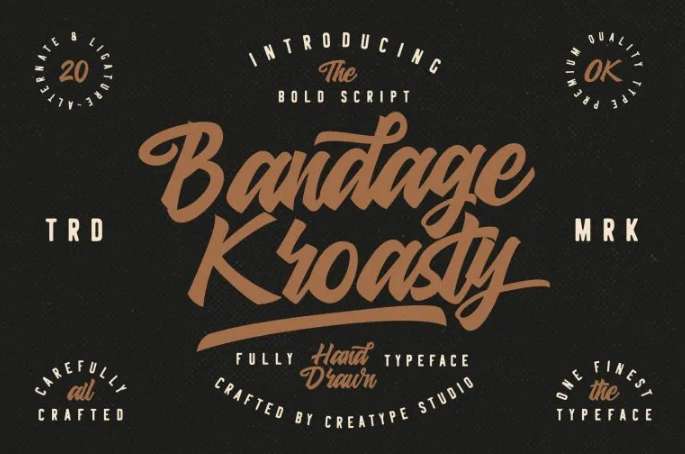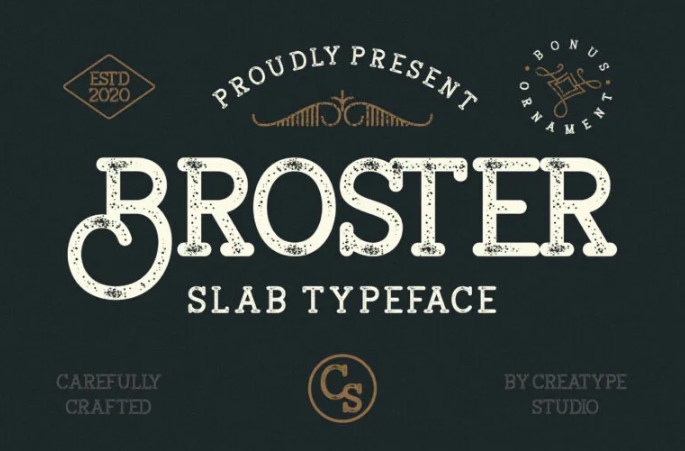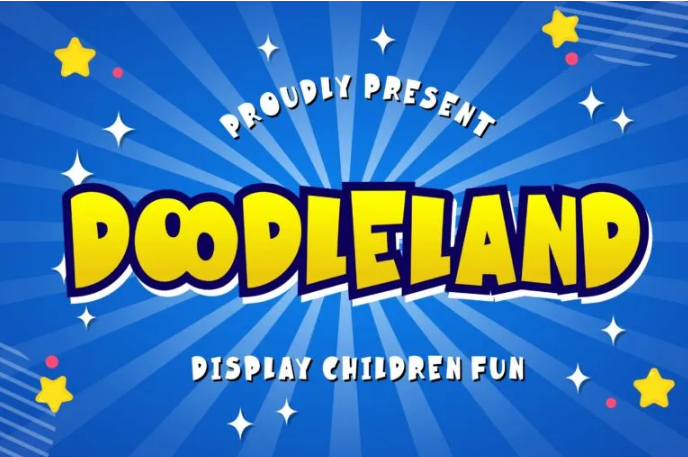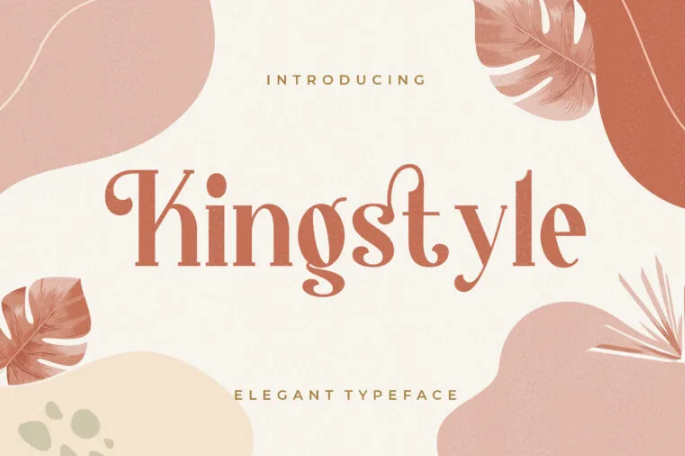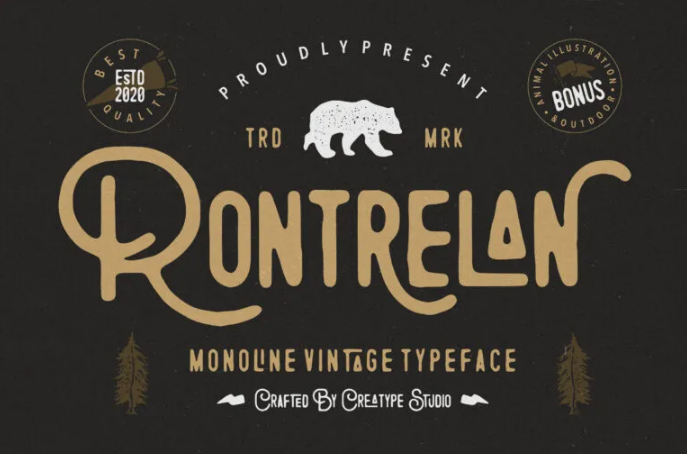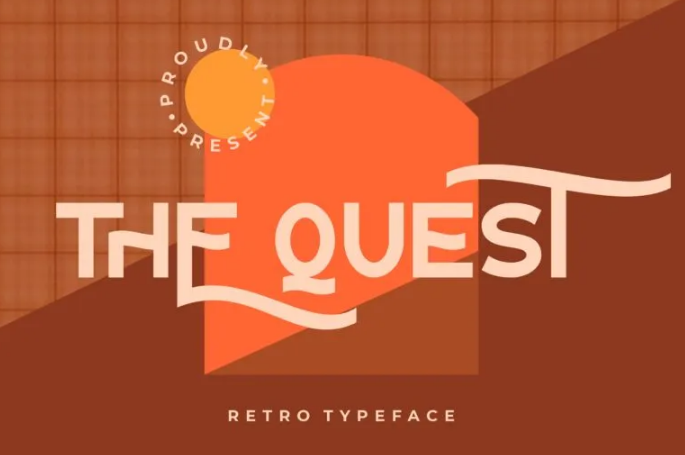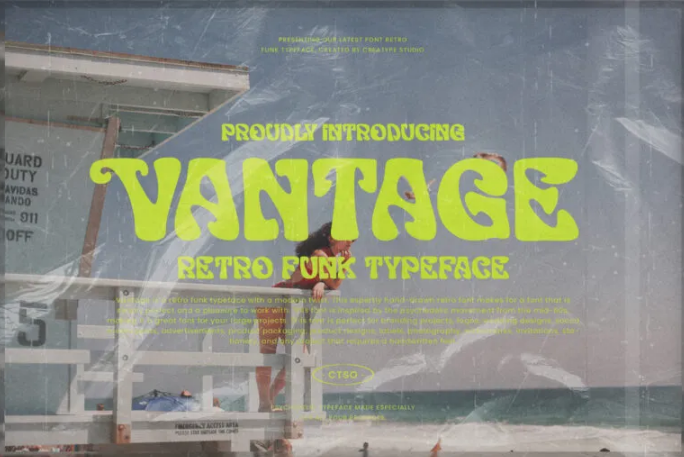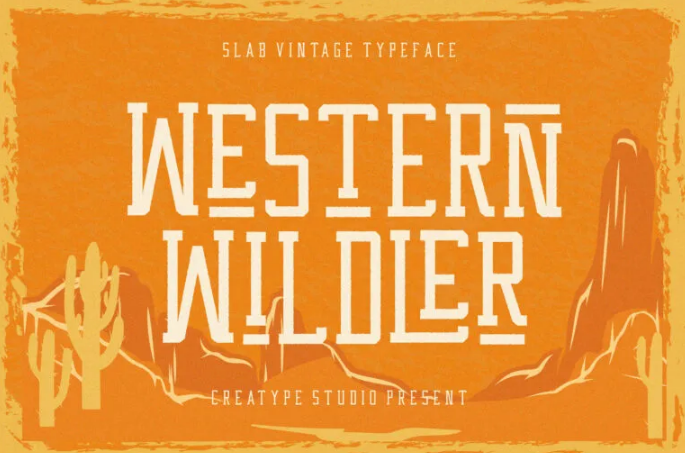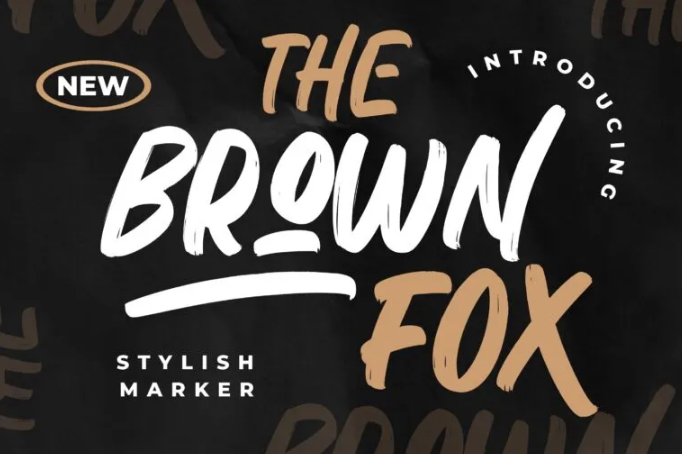
Top 9 Modern Fonts for Logo Design to Make it Contemporary
Choosing the right font for your brand logo is one of your most significant branding decisions. It conveys your brand’s personality and values, leaving a lasting first impression on your customers. But with thousands of fonts, how do you narrow down the selection to find the perfect modern fonts for logo?
No worries, this article will guide you in discovering the best modern fonts for logo as we have rounded up the top 9 modern fonts for logo design. So, keep reading!
Top 9 Modern Fonts for Logo
Using fonts for logo design is a great way to express that your brand is fresh, accessible, and capable. Whether you’re seeking serif, sans serif, or script fonts, there are many options. As such, you can easily find the ideal modern font with your brand’s signature personality and unique values.
Without wasting your precious time, here are the top 9 modern logos fonts we collected from Creatype Studio. It is a website that offers a wide range of fonts, from sans serif to script. So, without further ado, check it out!
1. Rontrelan
Rontrelan
The first on the list of the best modern fonts for logos is Rontrelan. This font can be a good choice if you want to create a logo design for your brand that mainly sells outdoor-related products. Rontrelan is a vintage monoline style font that brings a natural rustic look with the addition of nature ornaments in each letter.
2. Broster
Broster
Next up is Broster. This modern font comes with a stamped look coupled with various additional unique ornaments in each letter. According to its looks, Broster can be a good font choice for those working on logo designs for brands that offer food and handcrafted products.
3. Western Wildler
Western Wilder
Just as the name suggests, Western Wildler is one of the best fonts for logos that is suitable for portraying the rusticity and wildness of your brand logo. Featuring a vintage slab style inspired by the Wild West, Western Wildler can make your design look magnificent.
4. Kingstyle
Kingstyle
Are you looking for an elegant serif font to convey the beauty and luxury of your brand? If yes, Kingstyle can do it well. It’s a serif font that brings an elegant, clean, and uncluttered impression combined with round swashes, making it unique. At this point, Kingstyle is perfect for women’s clothing and skincare brands.
5. The Brown Fox
The Brown Fox
Next on the list is The Brown Fox, a stylish marker font that brings a perfect, bold brush style to your logo design project. Considering its bold style and design, this is a great choice for those working on logo designs for male-themed brands, menswear, workout supplements, and more.
6. Vantage
Vantage
You’re not wrong! This font, named Vantage, is in line with the vintage style it brings. This font brings a retro funk typeface while still showing a modern touch in each letter. Vantage is also a font inspired by the psychedelic movement in the mid-60s, making it perfect for your logo designs that need to highlight retro values.
7. Bandage Kroasty
Bandage Kroasty
If you’re looking for the best modern fonts for script-style logos, then Bandage Kroasty might catch your eye. Take a look, doesn’t this font look beautiful, thanks to its hand-drawn letters? Would you agree? Referring to the design of this font, Bandage Kroasty could be perfect for creating impressive logo design projects.
8. The Quest
The Quest
Eighth on the list is a modern font perfect for fashion brand logo designs, whether shirts, shoes, or bags. Say, welcome to The Quest! Bringing a blend of retro style and modern impression, The Quest can elevate any project you’re working on.
9. Doodleland
Doodleland
Are you working on a logo design for a brand offering children’s products, food, clothing, or accessories? If so, then Doodleland is worth your consideration. It’s a display font with a fun style, making it perfect for any design related to kids.
Which Modern Fonts for Logo Design that Suits You?
You’ve come to the end of the article. Choosing appropriate fonts for logo design can truly convey your brand’s personality and values. Of the nine modern fonts for logo design above, which one appeals the most and meets your needs and preferences?